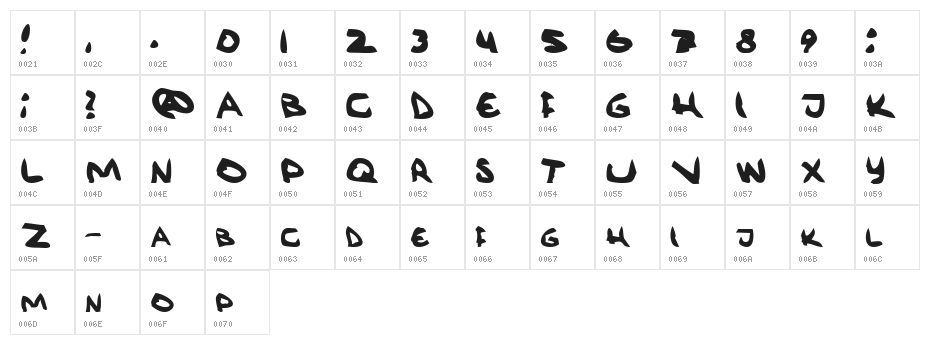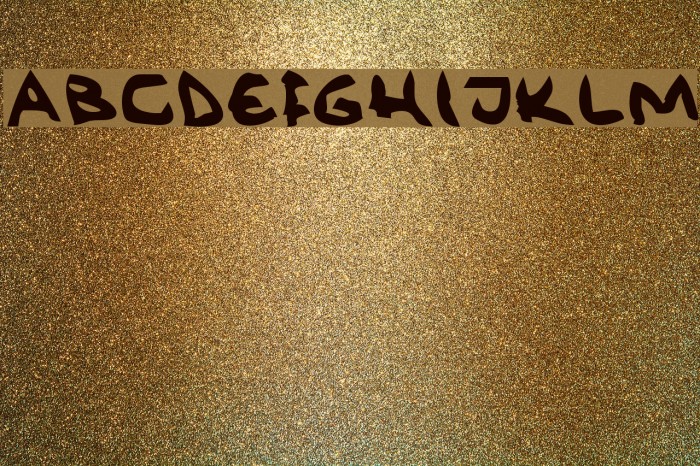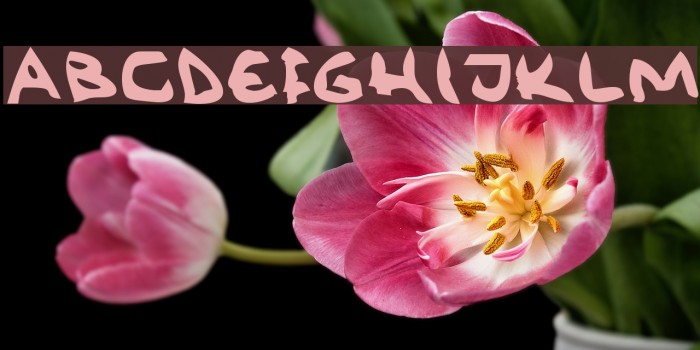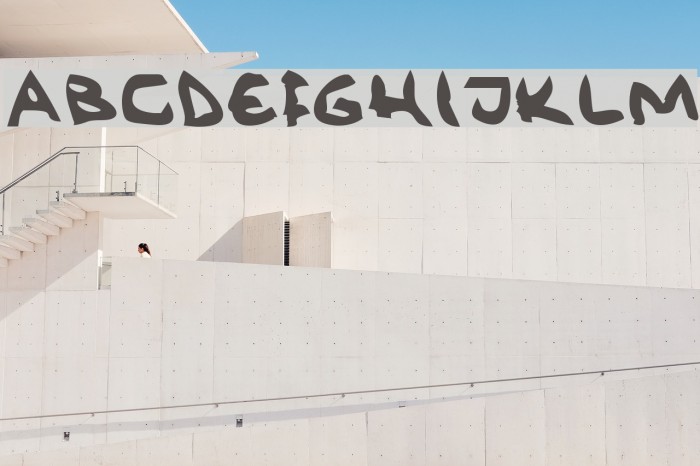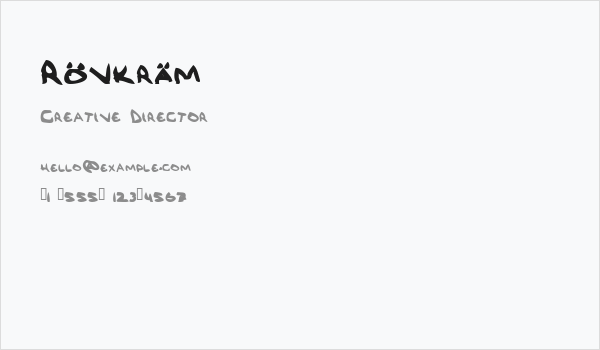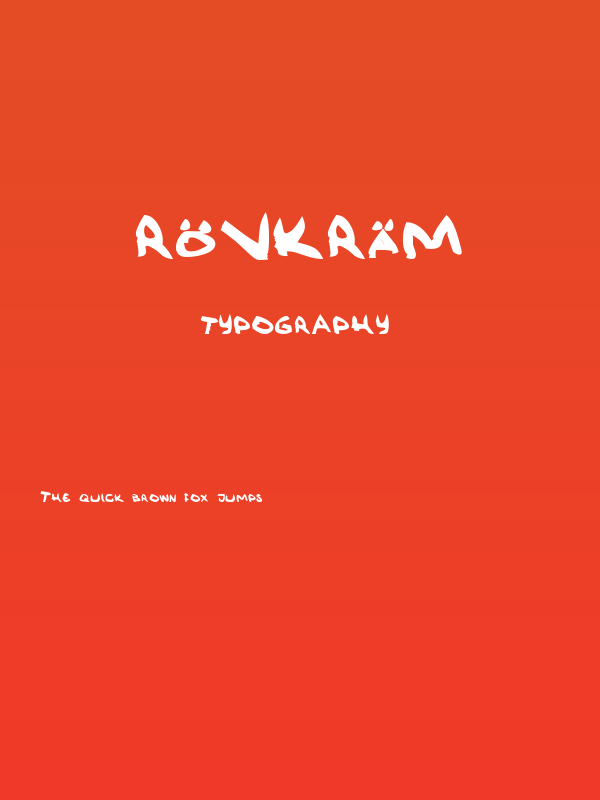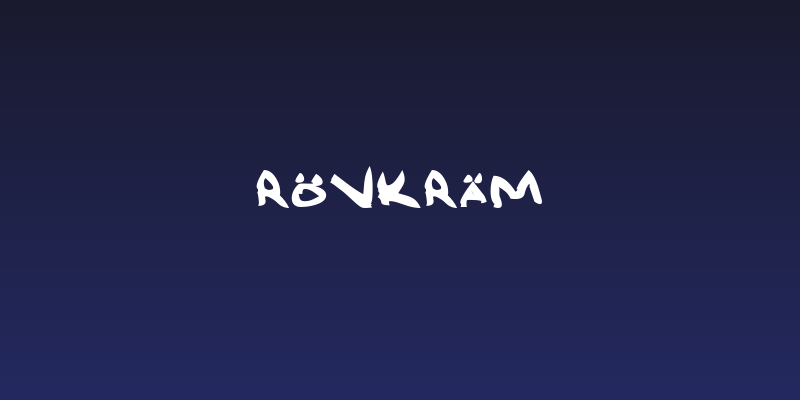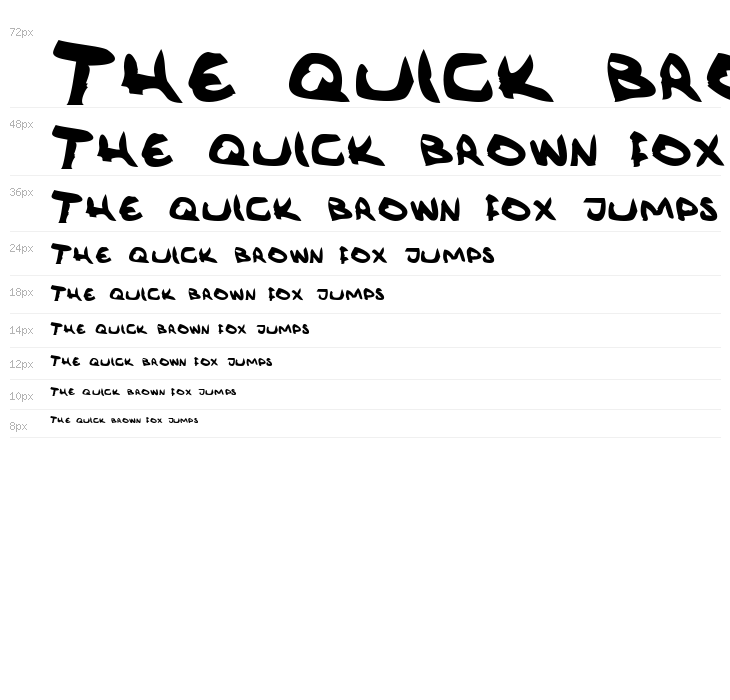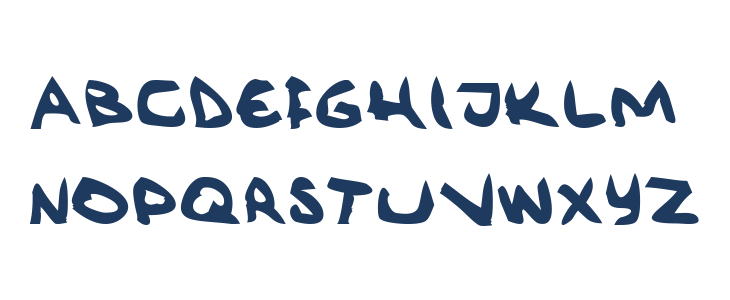
Rövkräm Font
Rövkräm Description
This font features a bold and playful design with a hand-drawn aesthetic. The characters have a dynamic and energetic feel, with irregular strokes and a slightly uneven baseline that adds to its charm. The uppercase and lowercase letters maintain a consistent style, while the numbers and special characters complement the overall look. The font's unique style makes it stand out, offering a creative and artistic vibe.
| Overall Style | Playful, Artistic, Hand-drawn |
| Proposed Projects | Ideal for children's books, playful branding, creative posters, and artistic projects. |